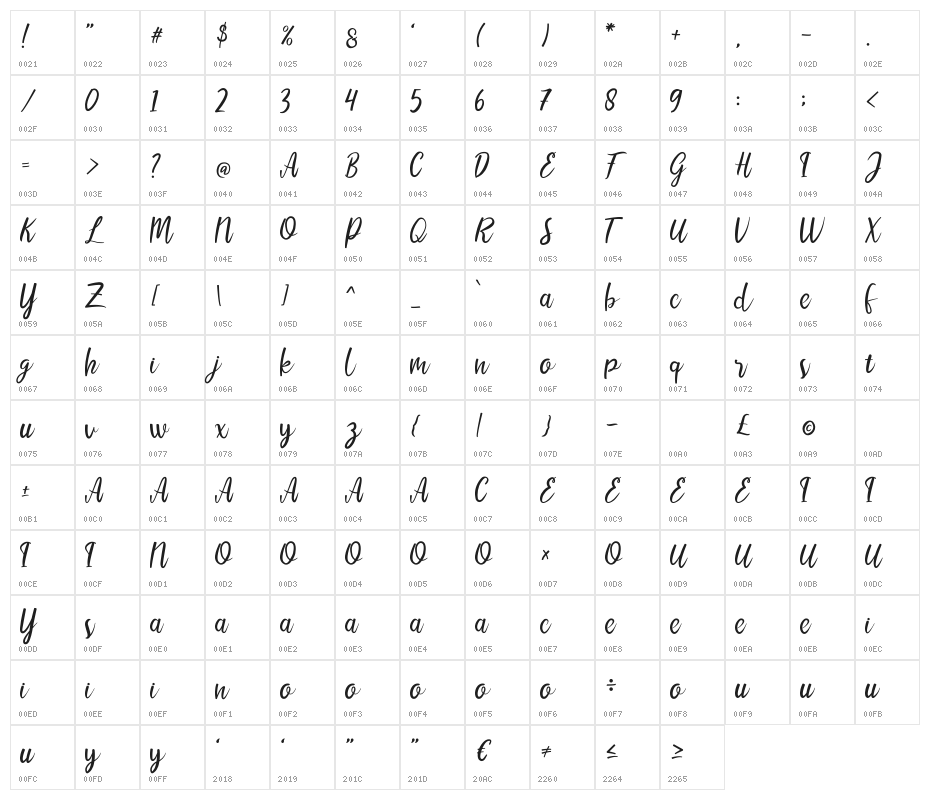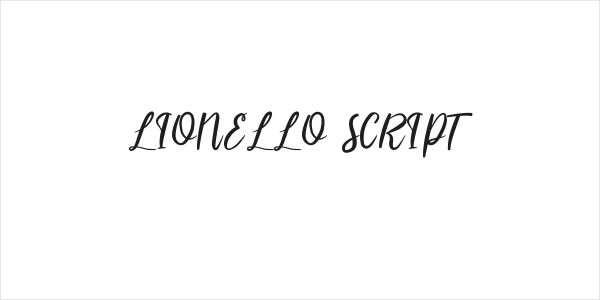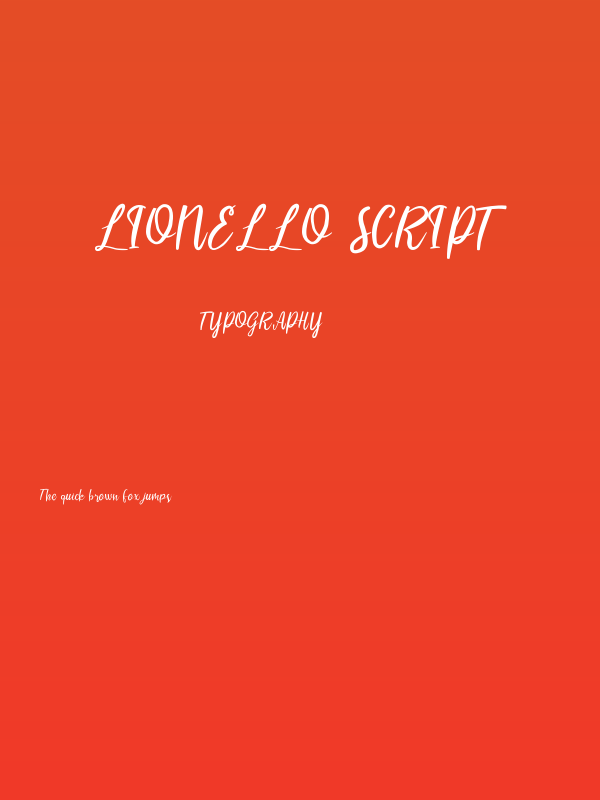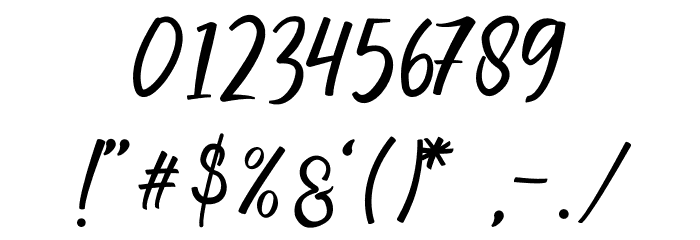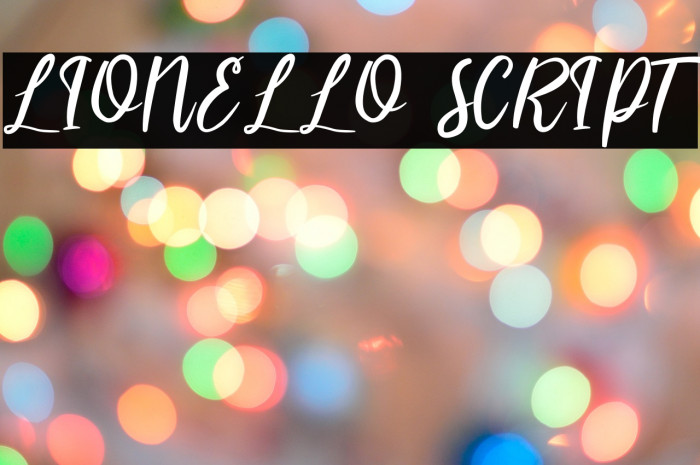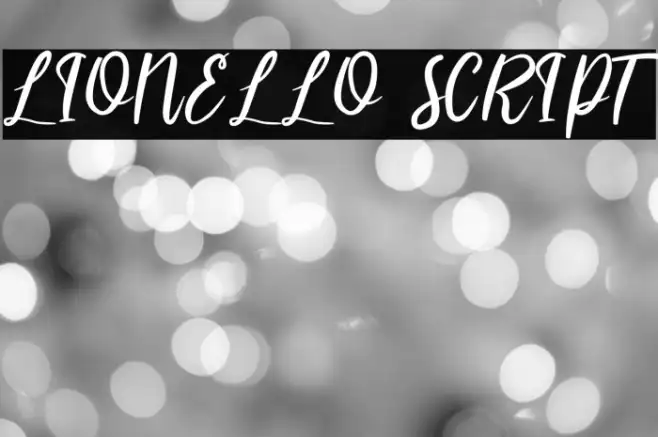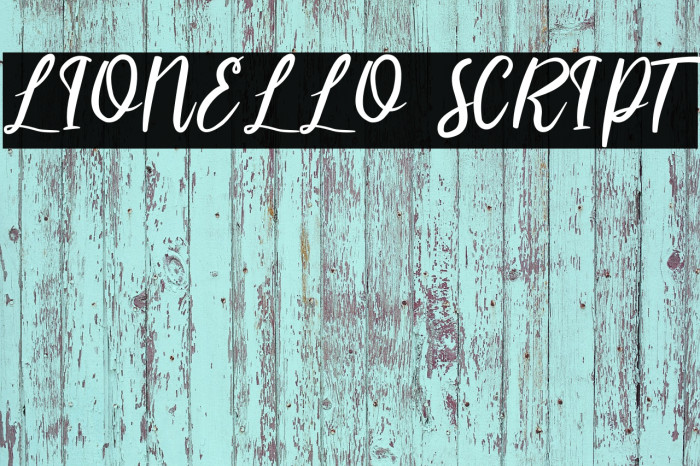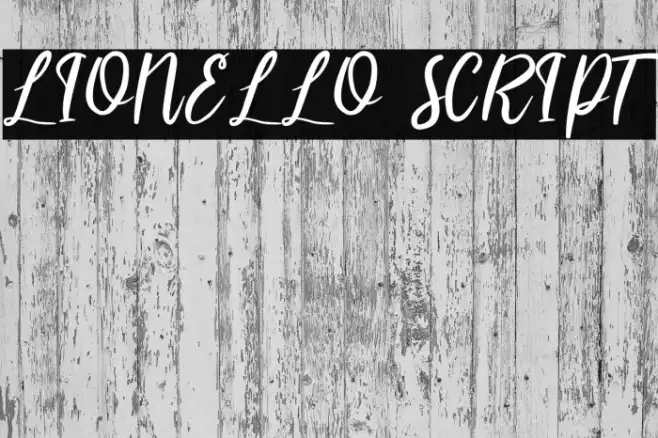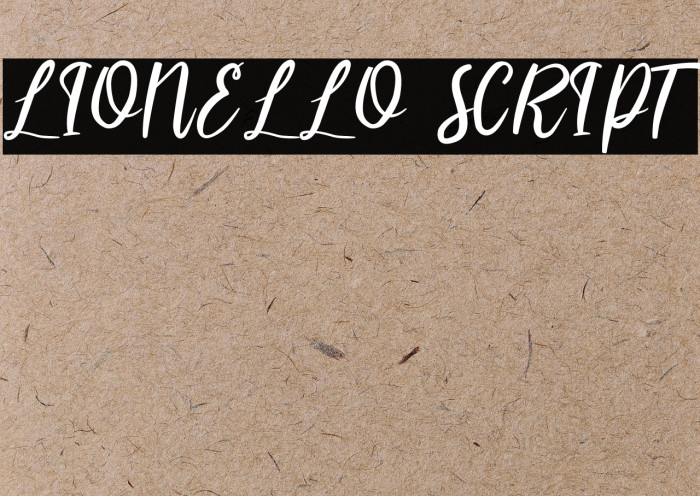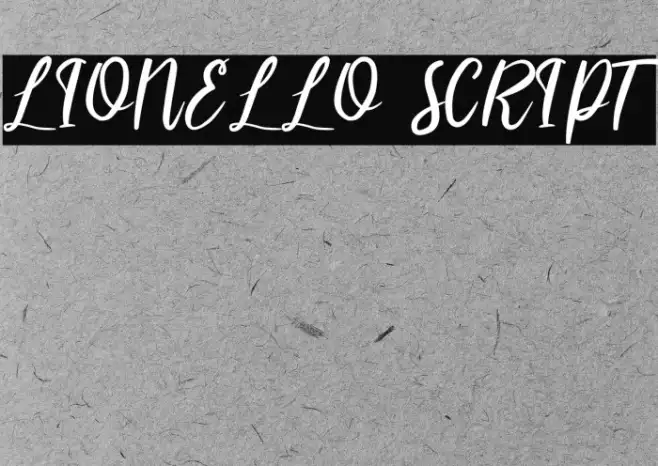
LIONELLO SCRIPT Font
LIONELLO SCRIPT Description
This font exudes a lively and elegant script style, characterized by its fluid, cursive strokes and dynamic flow. The uppercase letters are bold and sweeping, with a slight slant that adds a sense of motion and grace. The lowercase letters maintain a consistent rhythm, featuring smooth curves and connecting strokes that enhance readability. Numbers and special characters are designed with the same attention to detail, ensuring a cohesive look across all elements. The overall appearance is both sophisticated and approachable, making it suitable for a variety of creative applications.
| Proposed Projects | Ideal for wedding invitations, greeting cards, branding projects, and elegant packaging designs. |